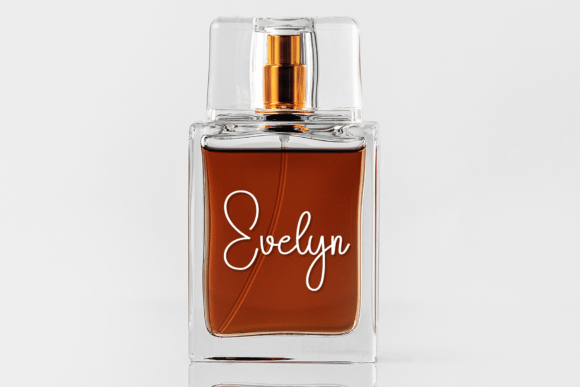
Achive Font: Elevate Your Designs with Elegance and Sophistication
In the world of typography, fonts play a crucial role in conveying the tone and personality of a brand or design. Among the numerous fonts available, Achive stands out as a stylish script font that exudes elegance and contemporary charm. With its graceful strokes, fluid curves, and carefully crafted letterforms, Achive captures the beauty of hand-drawn calligraphy with a modern twist.
What is Achive Font?
Achive is a modern script font designed to add a touch of sophistication and refinement to any design. Its unique blend of traditional calligraphy and contemporary style makes it an ideal choice for designers looking to create stunning visual content. Whether you’re working on a logo, invitation, packaging, or social media graphic, Achive font is sure to impress.
Key Features of Achive Font
- Graceful Strokes: Achive font features smooth, flowing strokes that give it a natural and elegant look.
- Fluid Curves: The font’s curves are carefully crafted to create a sense of fluidity and movement.
- Carefully Crafted Letterforms: Each letterform is meticulously designed to ensure a high level of legibility and aesthetic appeal.
- Modern Twist: Achive font brings a fresh and modern spin to traditional calligraphy, making it perfect for contemporary designs.
Use Cases for Achive Font
Achive font is versatile and can be used in various design projects, including:
- Logos: Create a lasting impression with a stylish and elegant logo that reflects your brand’s personality.
- Invitations: Add a touch of sophistication to your invitations, making them perfect for weddings, parties, and other special events.
- Packaging: Elevate your product packaging with a font that exudes elegance and refinement.
- Social Media Graphics: Create stunning social media graphics that stand out from the crowd and engage your audience.
Benefits of Using Achive Font
Using Achive font in your designs offers several benefits, including:
- Refined and Sophisticated Look: Achive font adds a touch of elegance and sophistication to any design.
- Versatility: The font’s versatility makes it suitable for various design projects, from logos to social media graphics.
- Visual Appeal: Achive font’s natural flow and polished details create a visually appealing design that captures the audience’s attention.
Tips for Using Achive Font Effectively
To get the most out of Achive font, follow these tips:
- Pair with Complementary Fonts: Combine Achive font with complementary fonts to create a harmonious and balanced design.
- Adjust Font Size and Style: Experiment with different font sizes and styles to create visual hierarchy and emphasis.
- Use in Moderation: Use Achive font in moderation to avoid overwhelming the design and to maintain its elegance.
Achive font is a stylish script font that offers a unique blend of elegance and contemporary charm. Its graceful strokes, fluid curves, and carefully crafted letterforms make it an ideal choice for designers looking to create stunning visual content. With its versatility and visual appeal, Achive font is sure to elevate your designs and leave a lasting impression on your audience.
FAQs About Achive Font
- What is Achive font? Achive font is a modern script font designed to add a touch of sophistication and refinement to any design.
- What are the key features of Achive font? Achive font features graceful strokes, fluid curves, and carefully crafted letterforms.
- What are the use cases for Achive font? Achive font can be used in various design projects, including logos, invitations, packaging, and social media graphics.